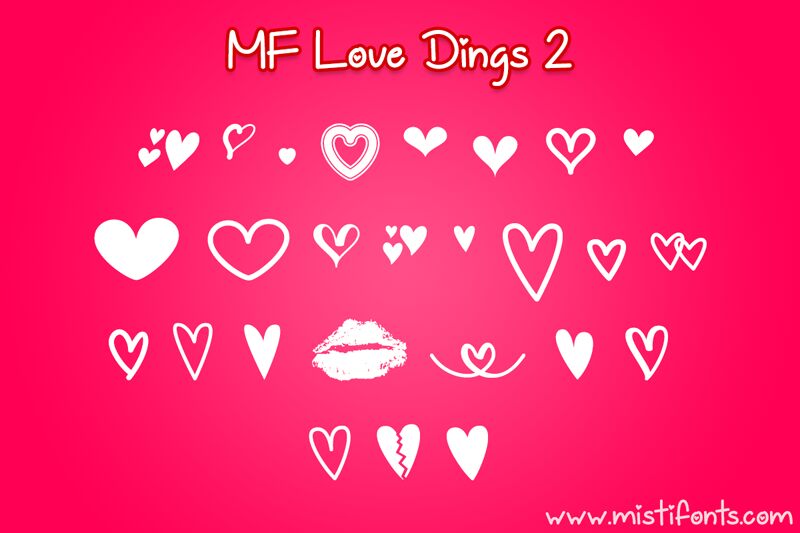
MF Love Dings 2 Regular
MF Love Dings 2 is a whimsical dingbat font designed by Misti's Fonts. Its playful heart-shaped symbols exude a charming, Valentine's Day-inspired aesthetic. The font's bold, minimalist strokes create a striking visual impact, while its versatile collection of varying heart motifs offers ample creative possibilities.
This font shines in designs that call for a touch of heartfelt sentiment, such as greeting cards, party invitations, and social media graphics. Its simplistic yet expressive nature also lends itself well to branding and marketing materials, adding a personal, handcrafted flair to various design projects.